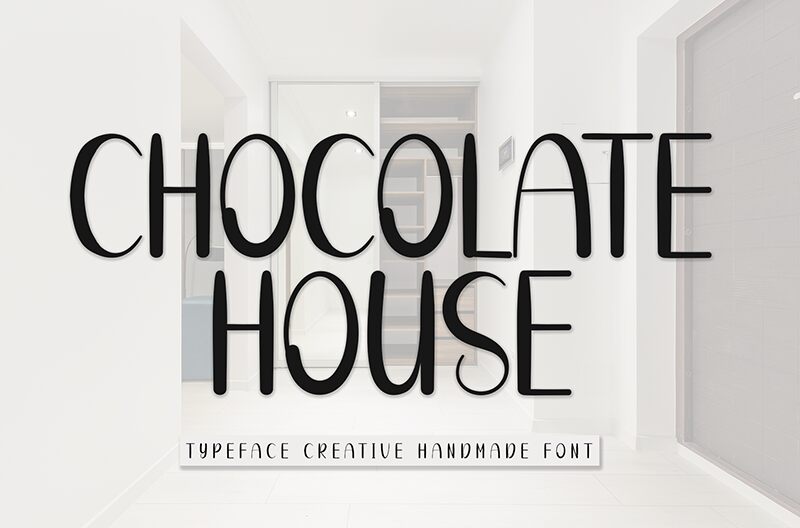
Chocolate House
Chocolate House font designed by Andi Moz is a romantic, elegant, and vintage-inspired handwritten font. Each letter appears as if it was written by hand particularly with its delicate decorative elements which result in an artistic flair and a refined aesthetic not commonly found in other fonts. Plus it’s free!
Whenever elegance is required Chocolate House would be suitable to enrich greeting cards, wedding invitations, posters for special events, product packaging design, t-shirts or branded clothes design. It’s also useful for beautifying journals and planners.